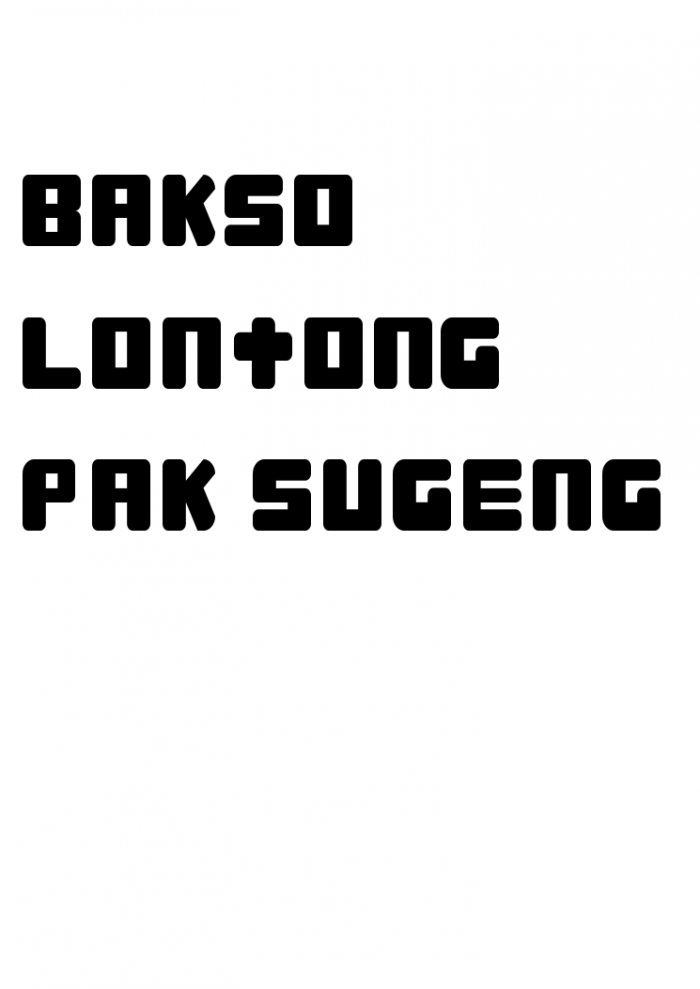
• Inspired by one of the most favorite Indonesian traditional food 'Bakso'
Its round shape and juicy taste is very special to Indonesian people. Made from steam mixed meat and flour, people in wester usually called it 'Meatball'. But actually they are different. Western people 'Meatball' usually eated with 'Italian' spaghetti. The texture of 'Meatball' is rough and use more beef than the Indonesian one. 'Bakso' eated with glass noodle soup with ketchup and soy sauce. People added some fried and green garlic leaf to add the taste. 'Bakso' has a very low price, you can have it yours for five thousand Indonesian Rupiah or five US Cents only at food corner around...
konsisten banget, good job!
nice font!
i find something wrong with 's'
Konsisten fontnya good!
neat and consistent, but I think you should adjust the letter size, because some small letters are bigger than the capital letters :)
Udah mantapp, karakter hurufnya kuat, berani dan berjiwa seni, beberapa huruf kecil nya ketebalannya tidak konsis dan juga lebih besar dari huruf kapital nyaa, secara keseluruhan well done my friend.
love the 't' :3
Keren Bro!
nice font
nice work :) but i think you must fix the capital letters and make it proportion
not bad, but u should fix the proportion dude :)
bagus, tapi huruf kecil dan huruf besarnya koq sama ukurannya?
Great typeface! mungkin ketebalan hurufnya bisa dibuat lebih konsisten. Overall, well done
The "S" look weird,and you need to fix the proportion :)
beberapa hurufnya agak kurang konsisten seperti S a t. Ukuran huruf kapital dan kecil tidak berbeda. Tapi bakso pol sih hurufnya, keep it up
Ini kerennnn ! 't' nya memang dibuat tebel ya ? Great great
overall good, like it so far, keep it up.
sudah bagus sih tapi proporsi tiap huruf kurang
nice font!
Bagus udh konsisten lanjutkan ! 't' nya stand out dr yang lain Great
Hurufnya agak kurang konsisten dikit, but overall its a greatt typefacee!!! GOOD JOB!!
Bagus.. unik.. tapi t nya sedikit aneh
Bagus jer, tp T nya kurang rapi
Comment by marvelferdinand 8th april 2016
Oke" vel, thank you buat masukanne, tpi emang sngaja tak buat gitu hahaha
Comment by jeremyadriansutanto 8th april 2016
sudah bagus, keren, tapi beberapa kurang konsisten, t nya lucuu
Comment by tifannysaverinap 8th april 2016
Thank you tiff :)
Comment by jeremyadriansutanto 8th april 2016
cute font! goodjob
Comment by Anita Sylvia 8th april 2016
Thank you anita :)
Comment by jeremyadriansutanto 9th april 2016
apik jer, tapi spasinya wkwkwk kurang sama soale , nicee kok jer :D
Comment by repratantra 9th april 2016
Thank you reg, iya emang blum diatur kerningnya..
Comment by jeremyadriansutanto 9th april 2016
very nice font! bold and consistent
Comment by steven_15167 9th april 2016
Thank you venn! hahaha
Comment by jeremyadriansutanto 9th april 2016
Nice font ! Keep going
Comment by agathaangelicaa 9th april 2016
n ujungnya agak di bulet aja mungkin lebih bagus lagiii~ good job~
Comment by regina15143 9th april 2016
Sederhana dan konsisten
Comment by Alvin Febrian 163 10th april 2016
Thank you ngel, regina, alvin :D
Comment by jeremyadriansutanto 11th april 2016
Mantapp!!Good job!
Comment by hansveda11 11th april 2016
nice workk mann. keep it up!
Comment by Hristo Karuna 11th april 2016
nice workk mann. keep it up!
Comment by Hristo Karuna 11th april 2016
Bagus jer tegas wkwk... Huruf "K"nya aneh...
Comment by RobbyGun 11th april 2016
Thank you hans, ozil, robby ;)
Comment by jeremyadriansutanto 11th april 2016
Wenakksss! Keren tjoyy!
Comment by Cynthia_CI97 11th april 2016
untuk uppercase ketebalan stroke sudah konsisten. Untuk E mungkin bisa di copy dr huruf B trus garis tengah dihapus. untuk huruf kecil kurang terkesan seperti bakso dan stroke kurang tebal
Comment by Celia Ivana (celiabenboy) 11th april 2016
hahaha thank you cyn! thank you celia buat masukannya! :D
Comment by jeremyadriansutanto 11th april 2016
good job!
Comment by m42415096_felita 11th april 2016
Bakso Vernacularpetra2016_jeremy15172by jeremyadriansutanto